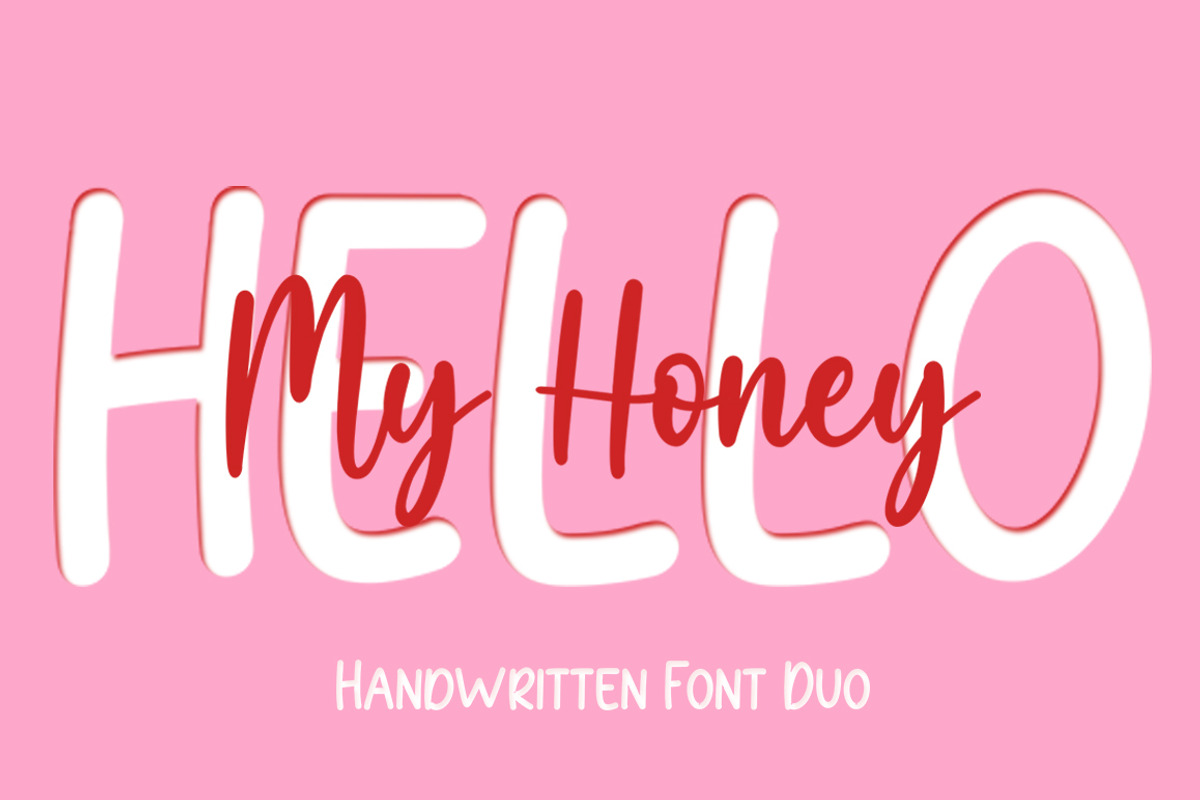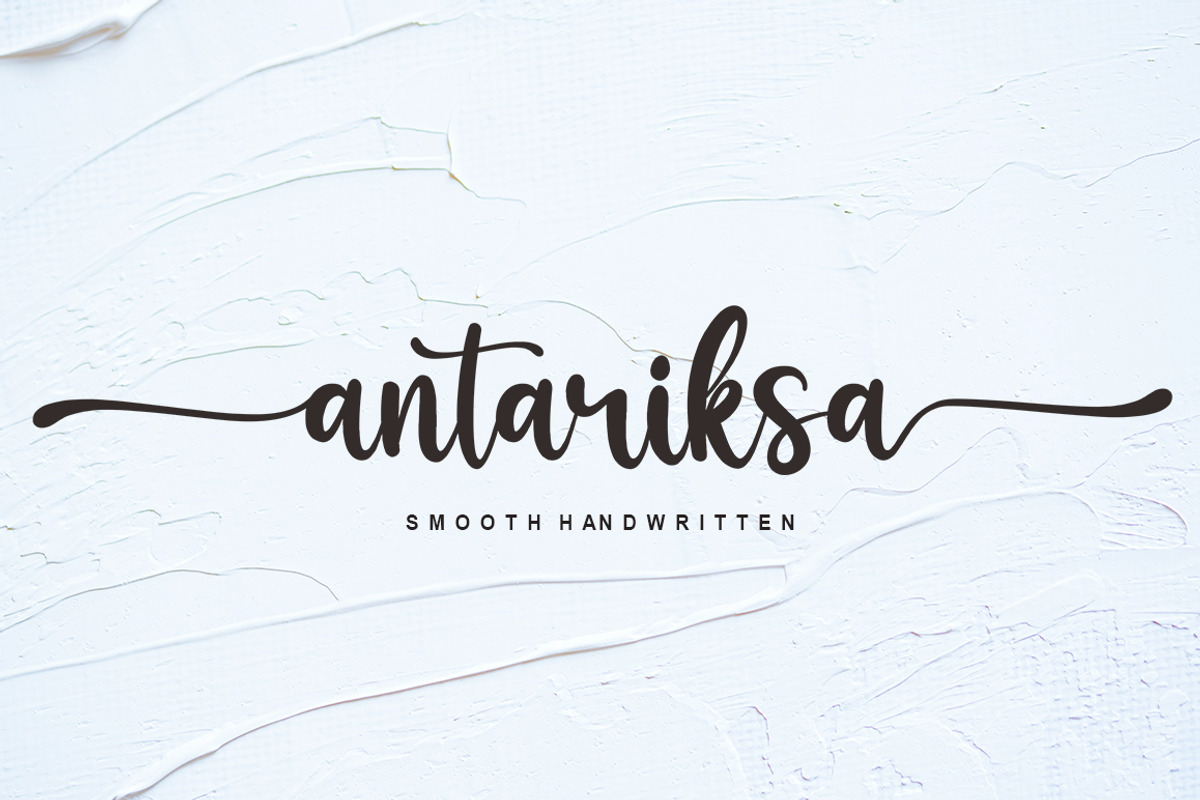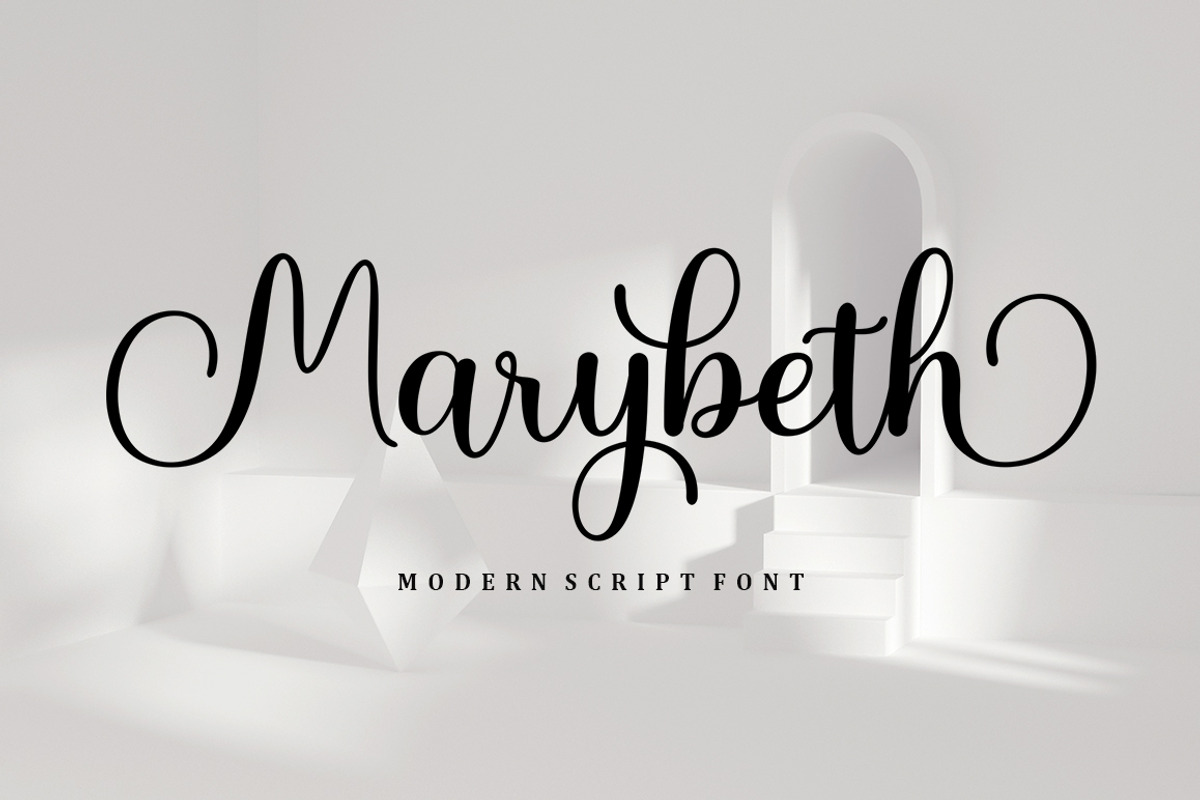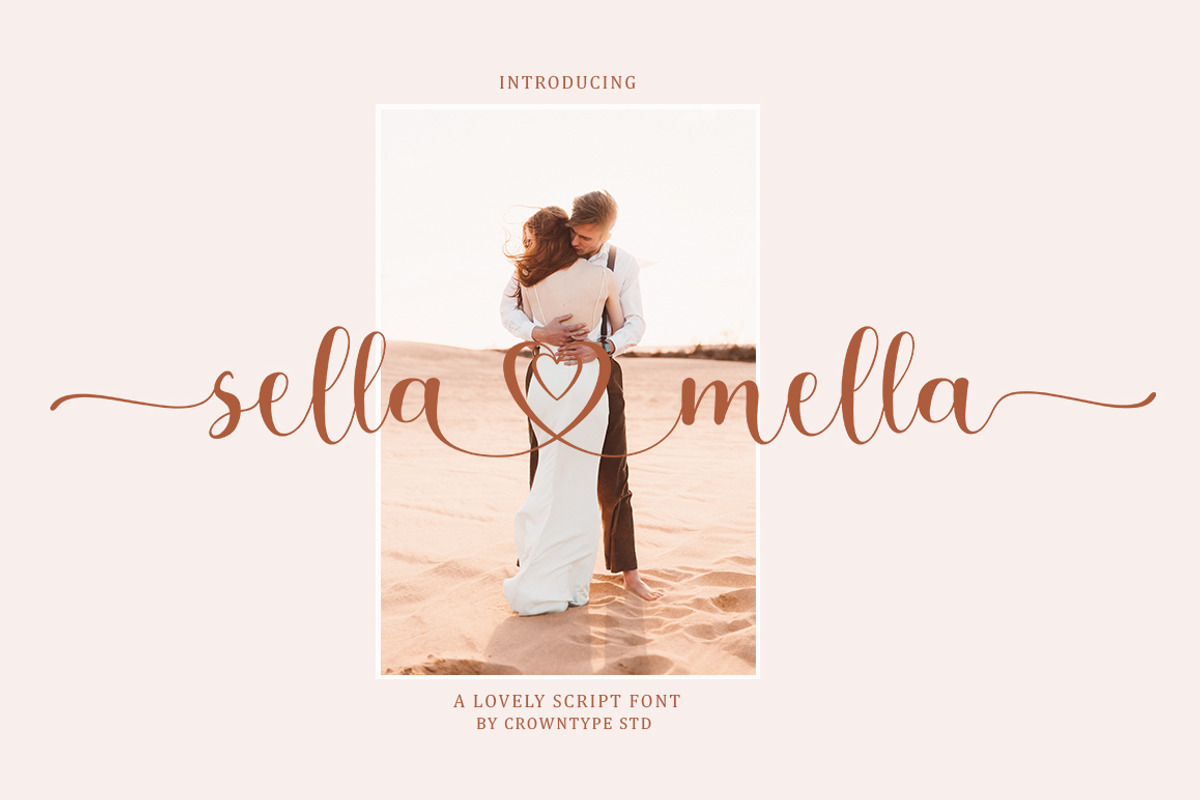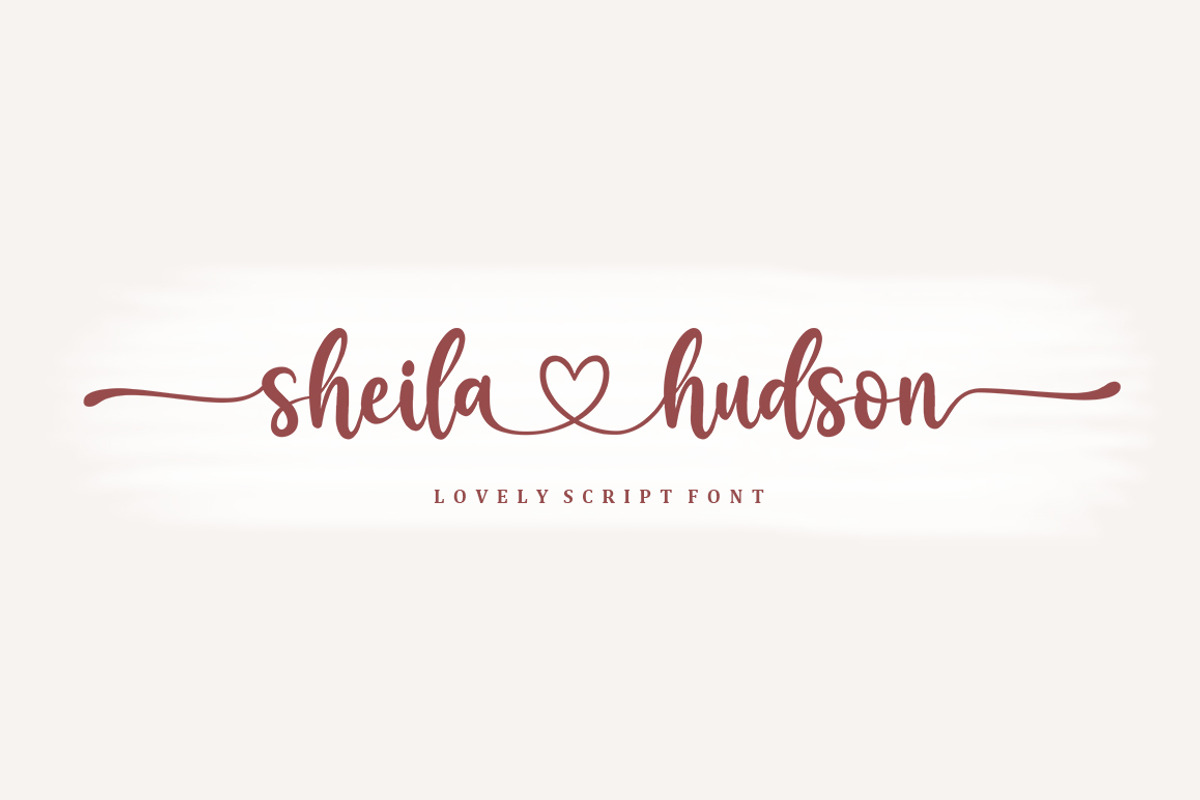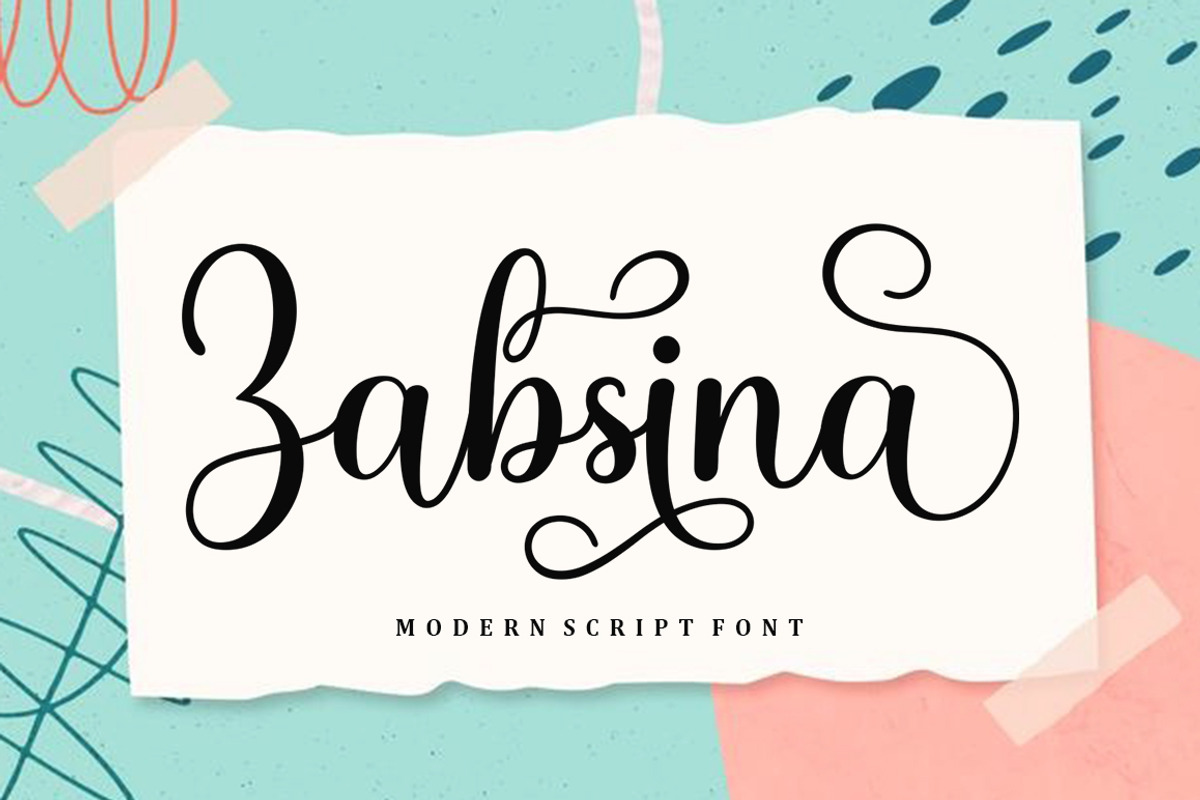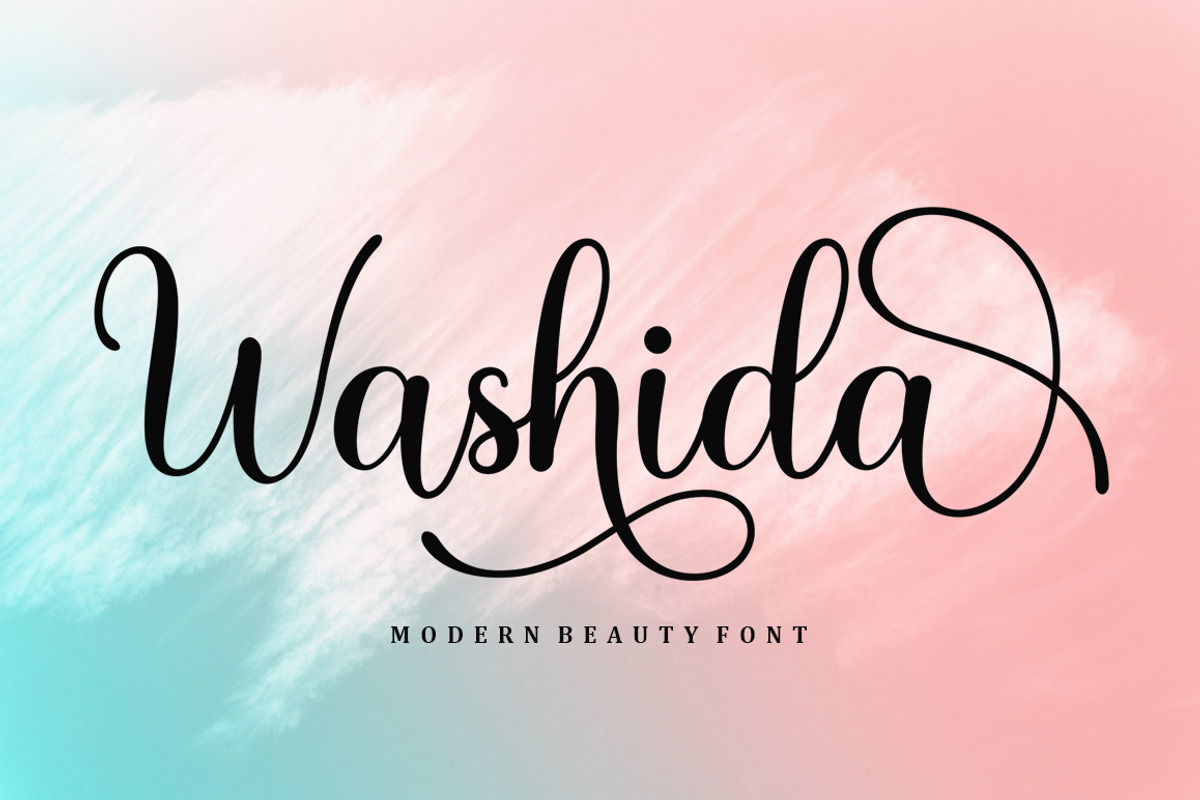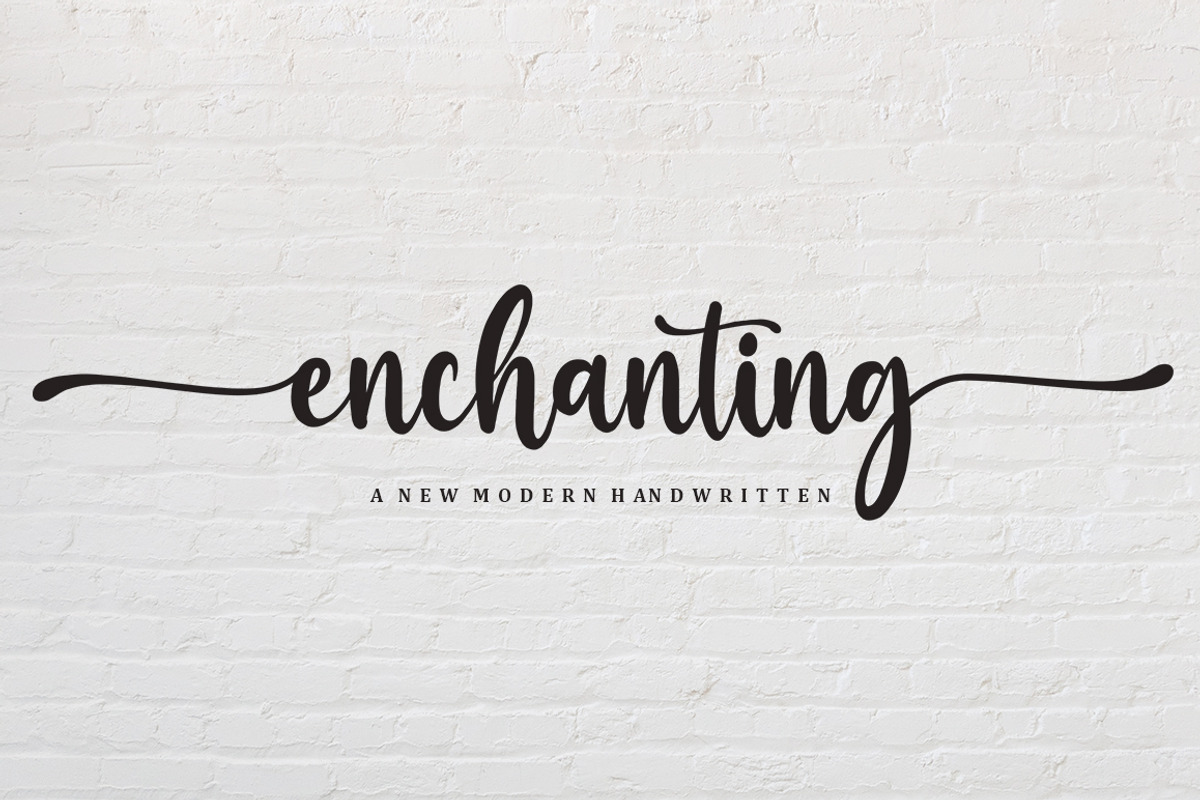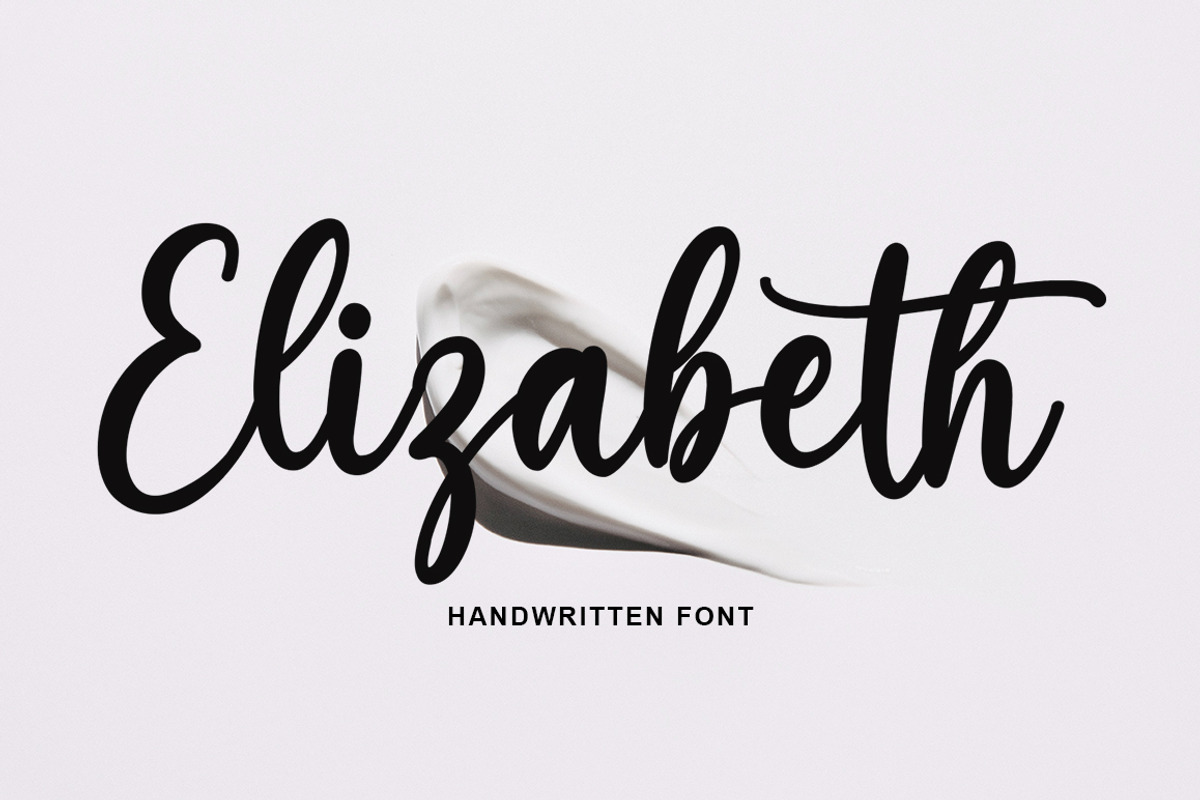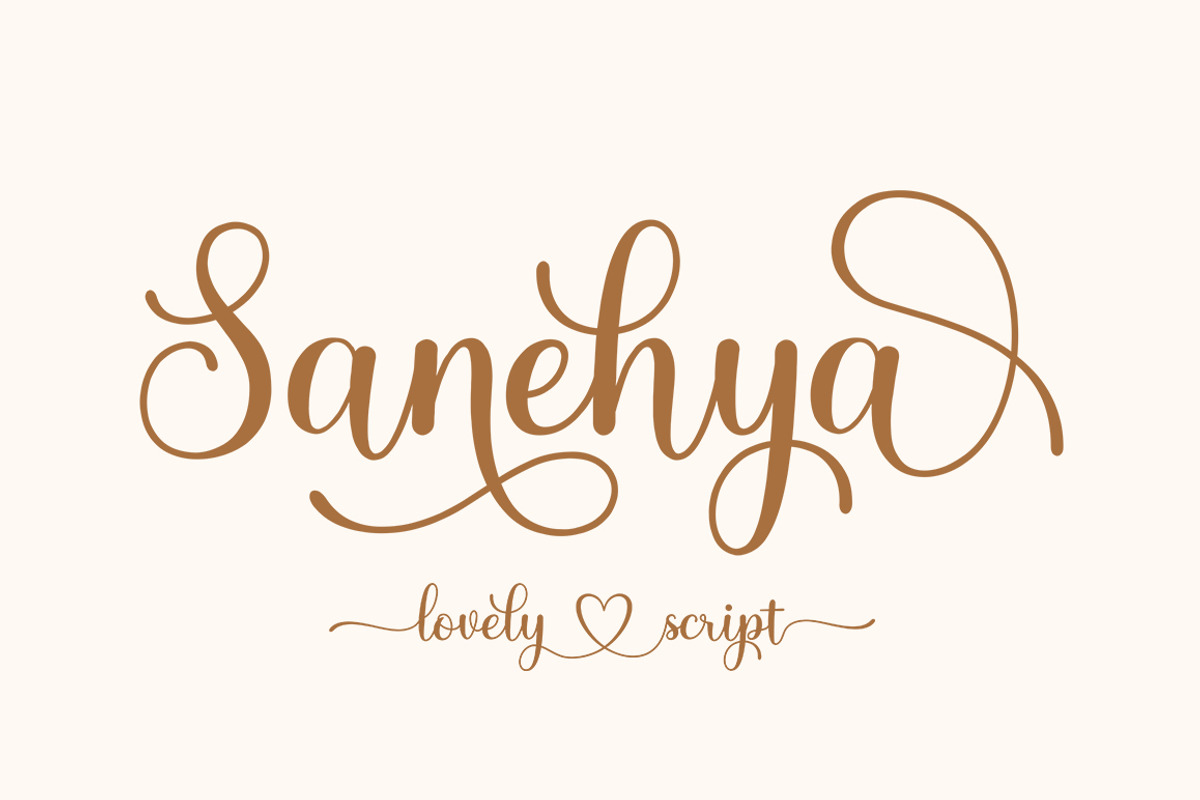
The Farmhouse | Font Bundle
Introducing The Farmhouse - Font Bundle,,,
This bundle includes a variety of font styles such as, calligraphy, signature, brush lettering, handwriting, and many more. with hundreds of glyphs, including alternatives, ligatures, slashes, and international language support.
Ton of glyphs
Ligature, Alternate & Swashes